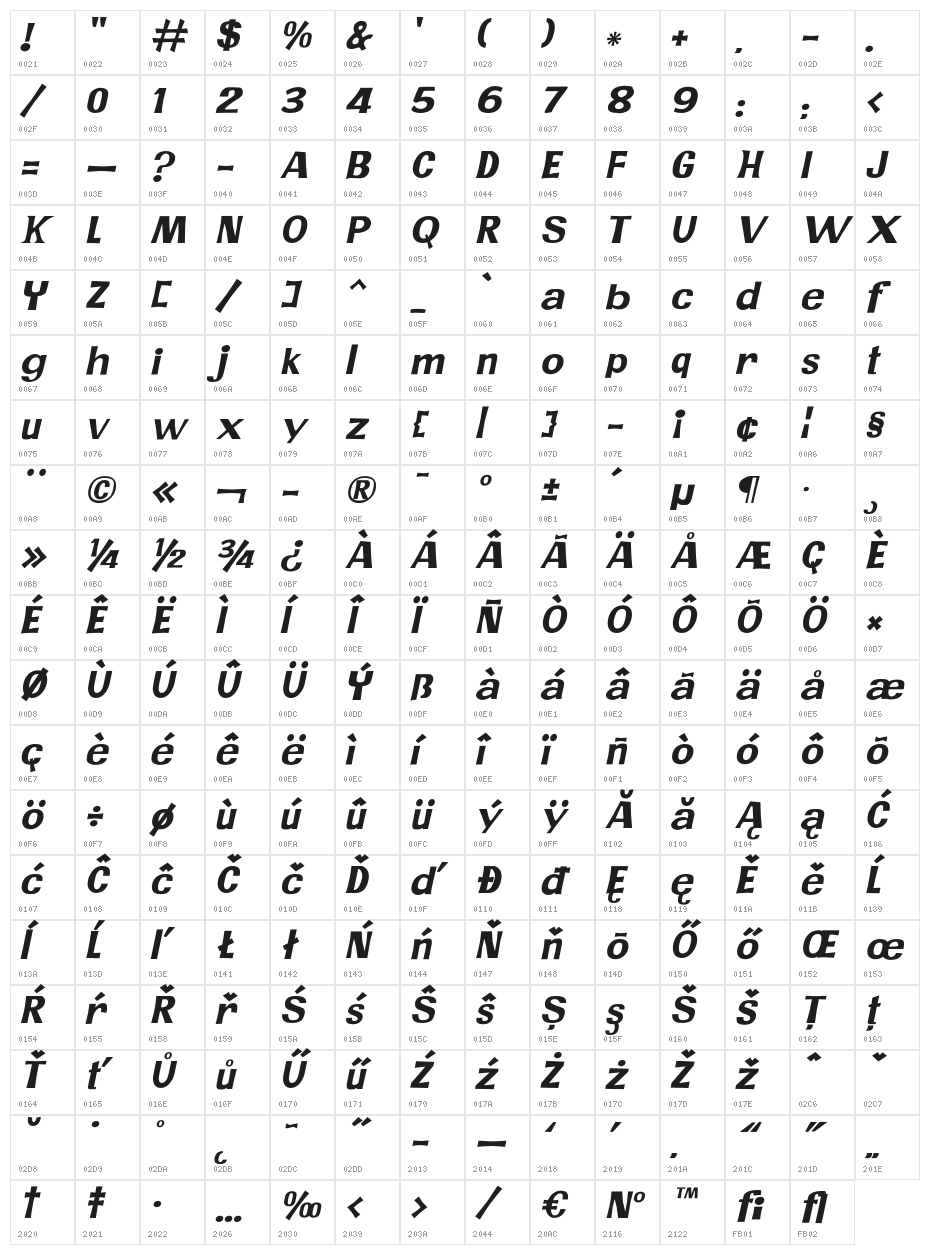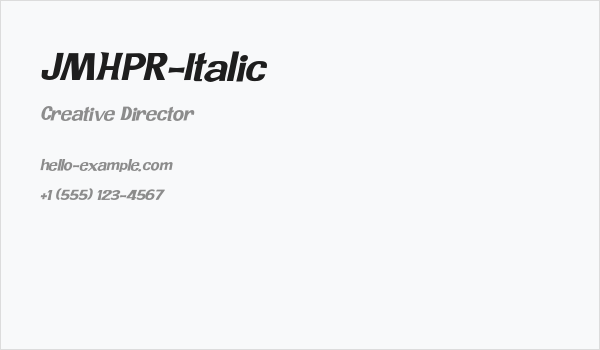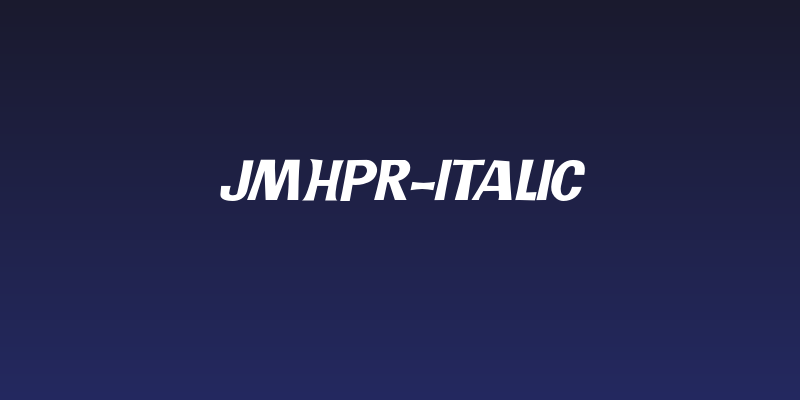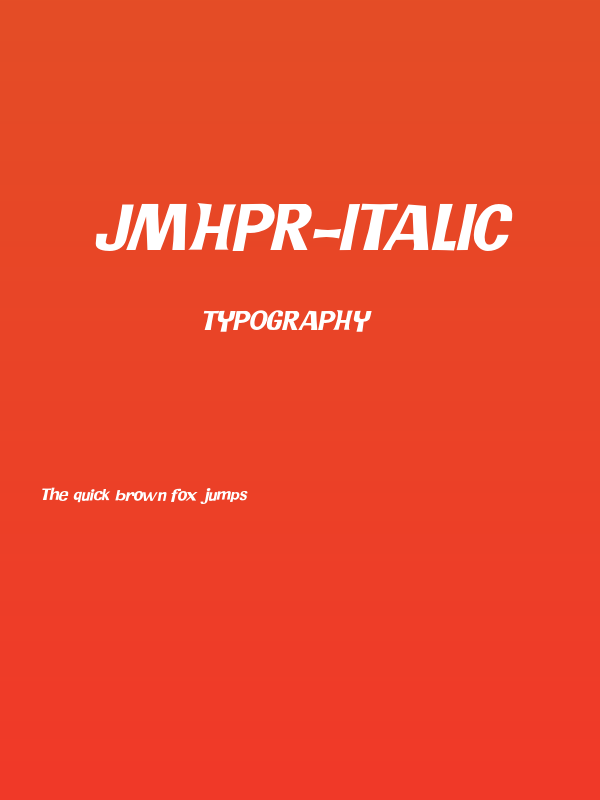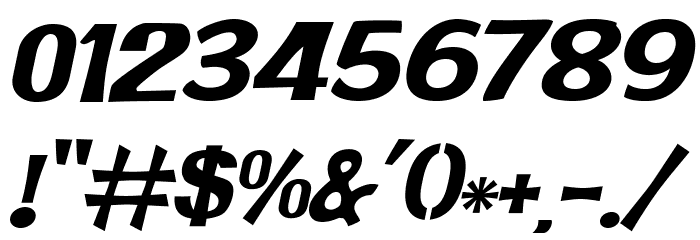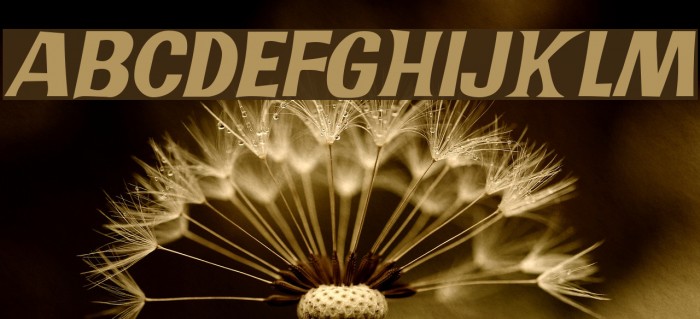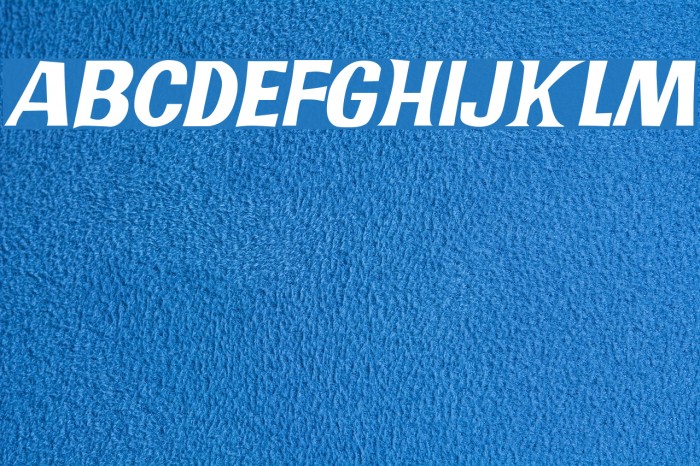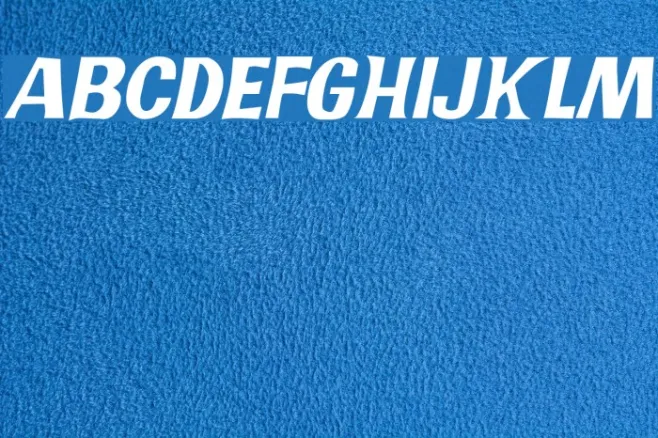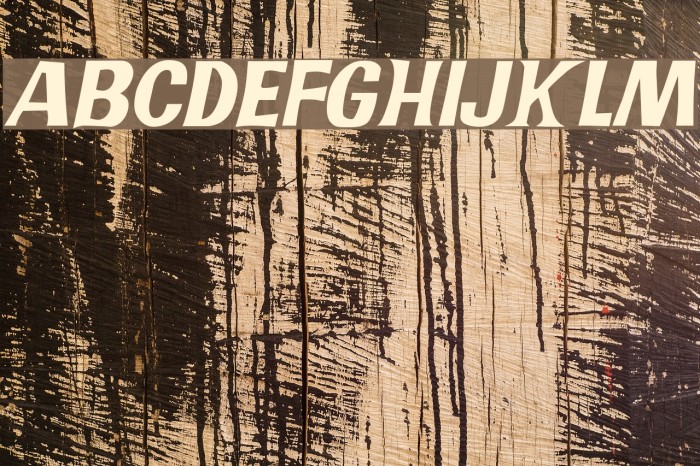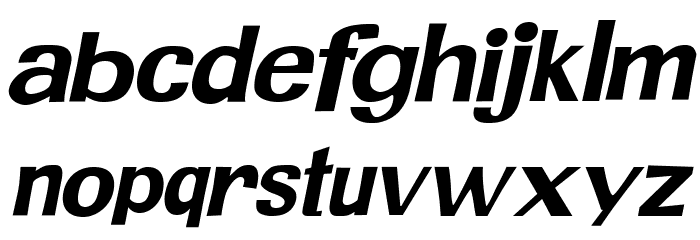
JMHPR-Italic Font
JMHPR-Italic Description
This font features a dynamic and energetic italic style, characterized by its forward-leaning posture and bold presence. The uppercase and lowercase letters maintain a consistent slant, enhancing the sense of motion and fluidity. The numerals are robust and clear, ensuring readability. Special characters are well-integrated, complementing the overall design. The strokes are thick, providing a strong visual impact, while the character spacing is tight, contributing to a compact and cohesive appearance.
| Proposed Projects | Ideal for sports branding, dynamic posters, and modern advertising campaigns. |